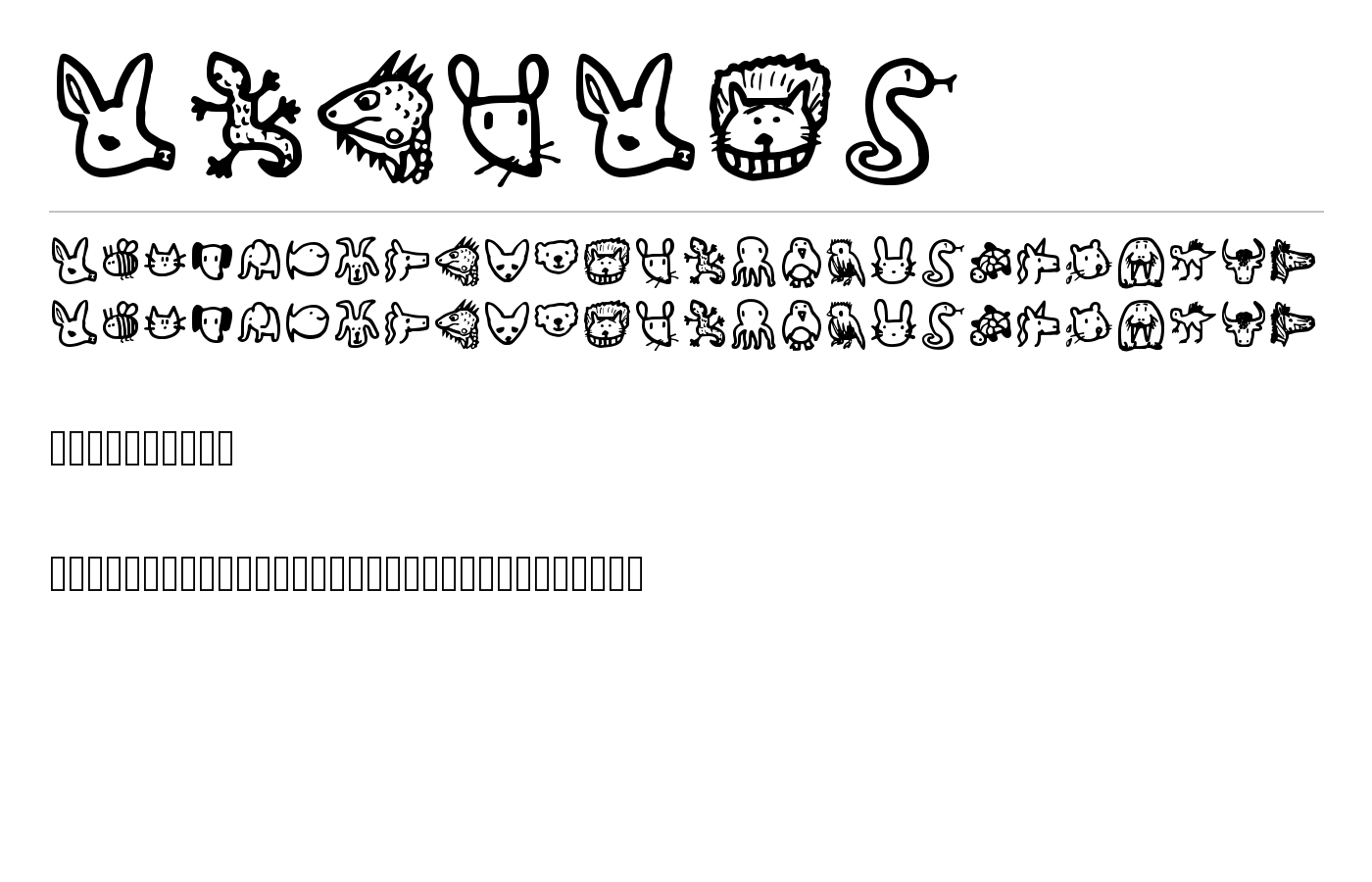
Animals Font is a playful and whimsical display typeface featuring hand-drawn animal illustrations as letterforms. Its irregular, doodle-like style with bold, sketchy lines and a fun, casual character makes it perfect for children's books, educational materials, and creative projects that seek a friendly and lighthearted vibe. This font excels in eye-catching headlines, logos, and playful branding where conveying joy and imagination is key.
Animals Font
About Animals Font
| Font family | Animals Font |
| Designer | The Mollusc Dimension |